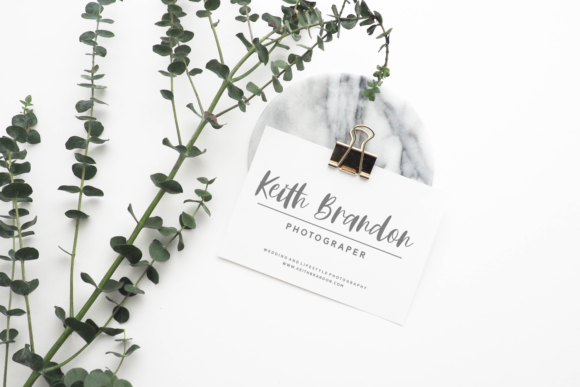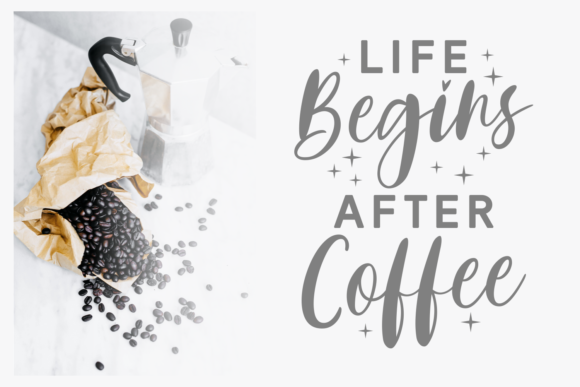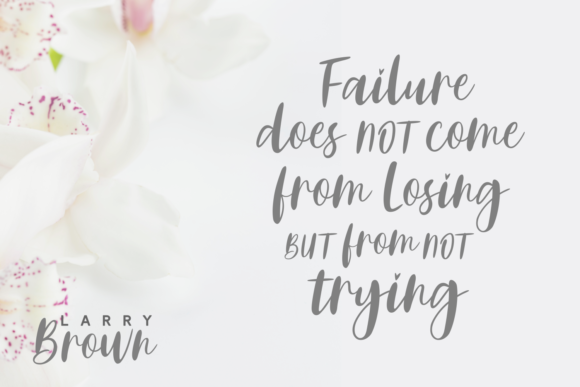
Introduction to Adelio Darmanto Font
Adelio Darmanto is a fun and sweet looking script font, perfect for use in feminine projects.
This font looks great in modern designs by adding a delicate quality .
Key Features of Adelio Darmanto Font